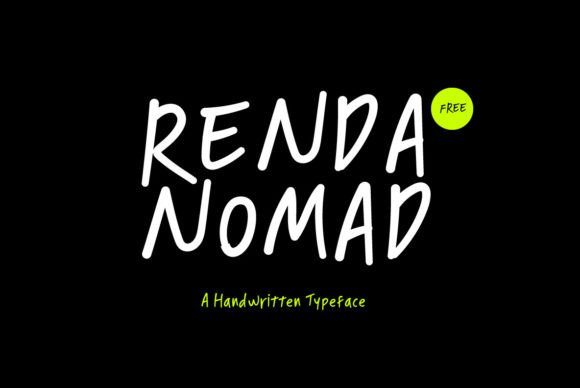
Renda Nomad Font - Captivating and Natural Handwritten Script
Unleash the allure of handwritten beauty with Renda Nomad, a stunning script font that whispers relaxation and warmth into your digital designs. Inspired by the sandy trails etched across the vast desert, each character in this typeface bears the essence of a traveler's journey, evoking a sense of timeless wanderlust.
Immerse yourself in the personal touch that Renda Nomad brings to your web forms, adding an organic and intimate feel that resonates with visitors. This handcrafted font, with its expressive strokes and spontaneous charm, transforms ordinary text into an artistic expression, capturing attention and creating a lasting impression.
Renda Nomad's unique characteristics, born from the merging of organic and timeless elements, give your web forms a distinctive edge. Whether you're crafting online surveys, registration pages, or contact forms, this font breathes life into your designs, making them as captivating as they are functional.
Embrace the spirit of adventure and let Renda Nomad guide you towards a new era of web form design. Experience the fusion of beauty and functionality, and watch as your forms captivate users, inviting them to engage and connect with your brand.
Indulge in the beauty of Renda Nomad and elevate your web forms to new heights, leaving a lasting impression on every visitor who crosses their path. Let the journey of your words begin, guided by the enchanting script of Renda Nomad.